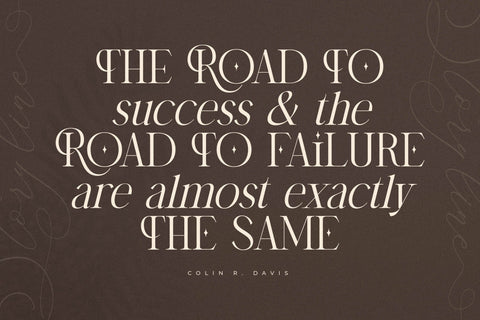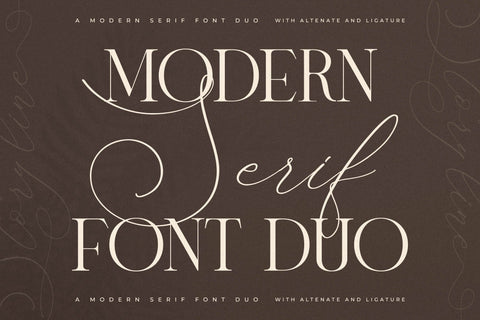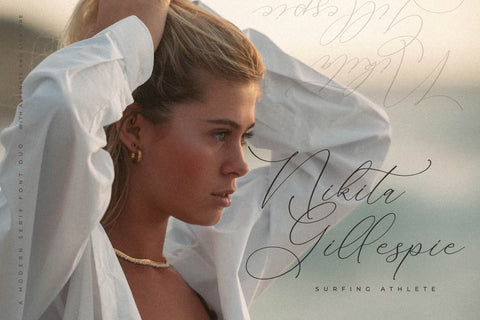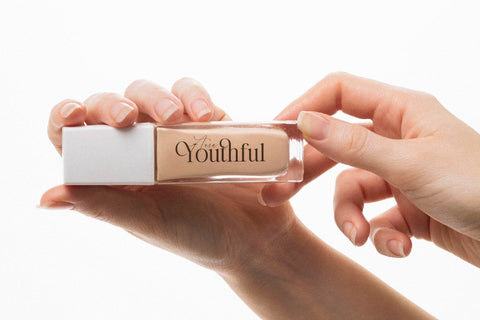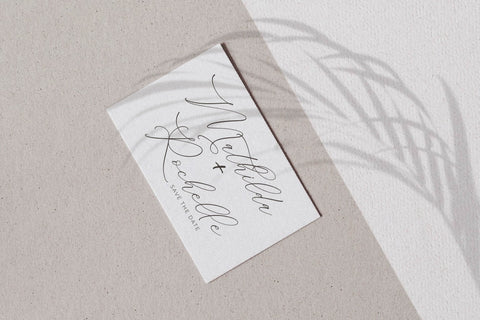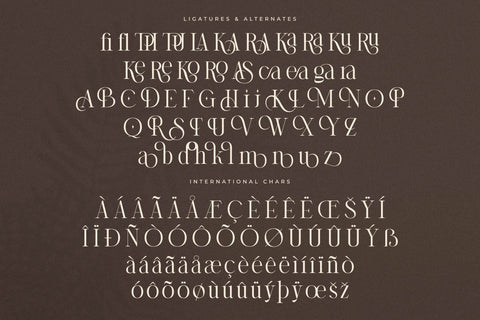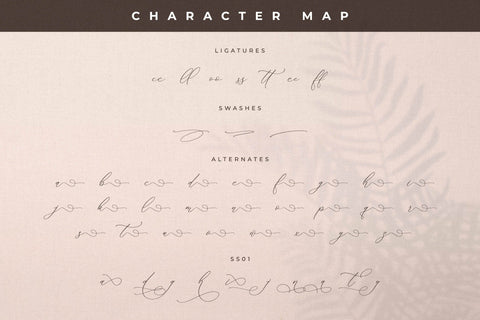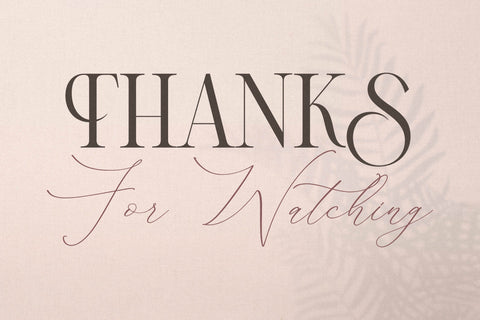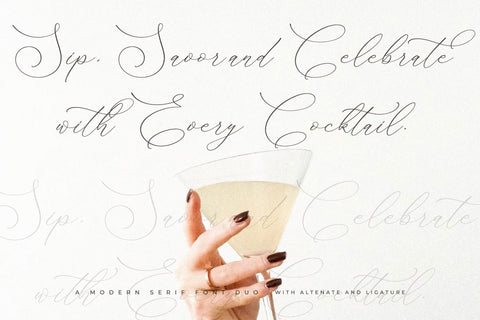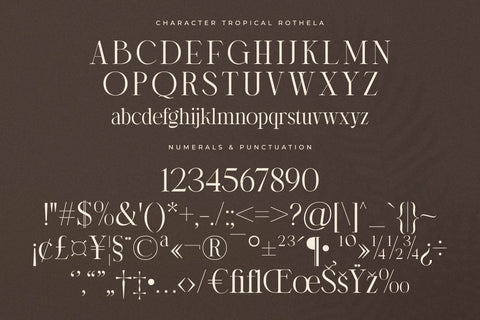
Storyline Regario Font Duo
Proudly present Storyline Regario Font Duo , created by Storytype,
A serif and script typeface that has own unique style & modern look.